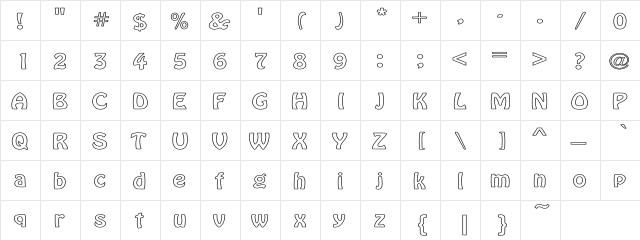
Vagabond Hollow Wd Regular
Design Context for Vagabond Hollow Wd Typeface
Vagabond Hollow Wd is a composed and adaptable typeface that performs quietly and consistently across a wide range of design contexts.
Pro Tip: Use Vagabond Hollow Wd in both headline and body roles to test its range before committing to a single application.